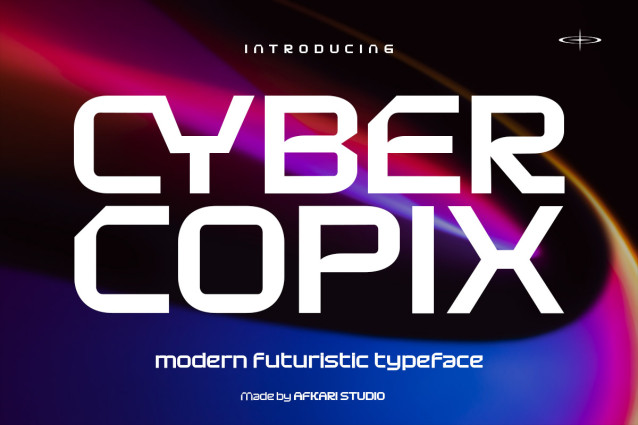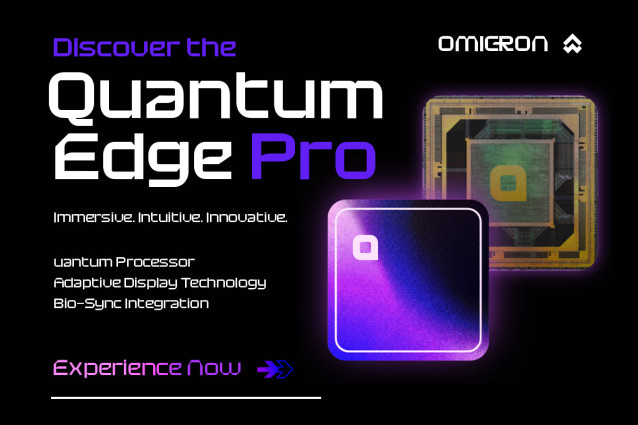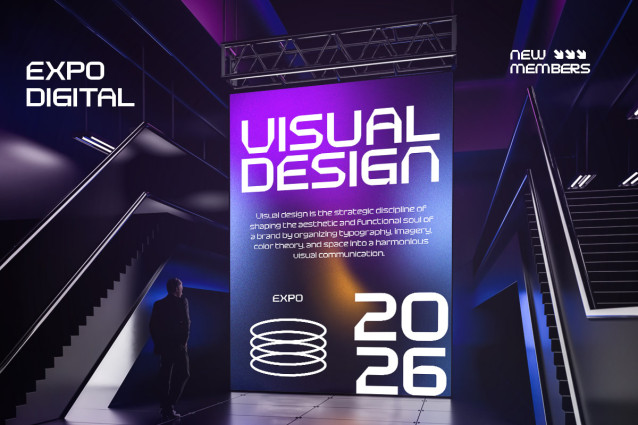
Cyber Copix – Modern Futuristic Sci-Fi Font
Cyber Copix is a modern futuristic sci-fi font built for creators who want bold digital aesthetics and cutting-edge visual impact. Inspired by cyberpunk culture, advanced technology interfaces, robotics, and futuristic gaming environments, this typeface combines sharp geometric construction with sleek modern styling.